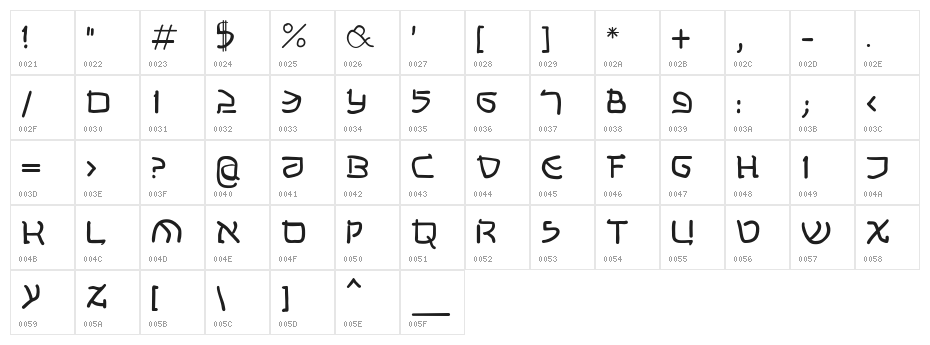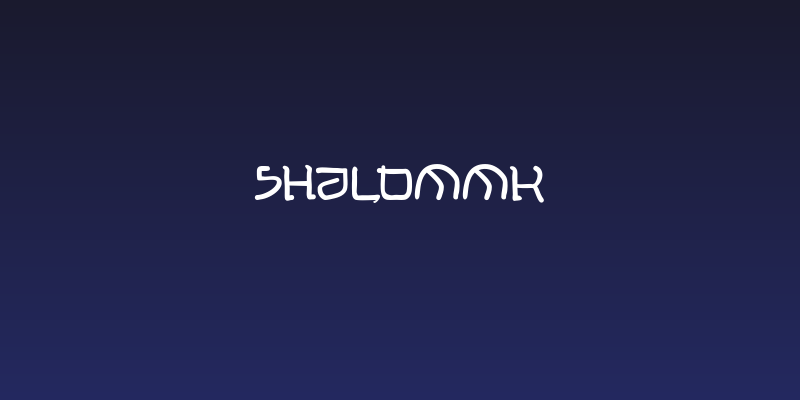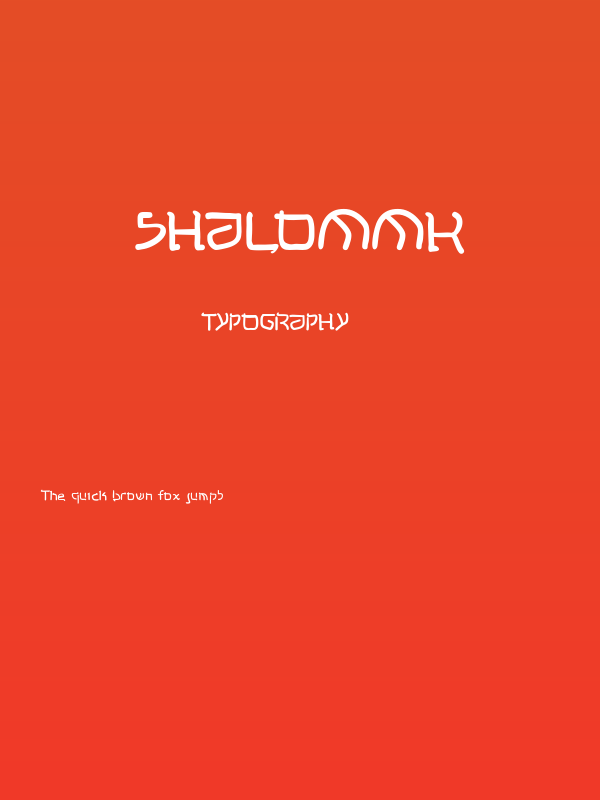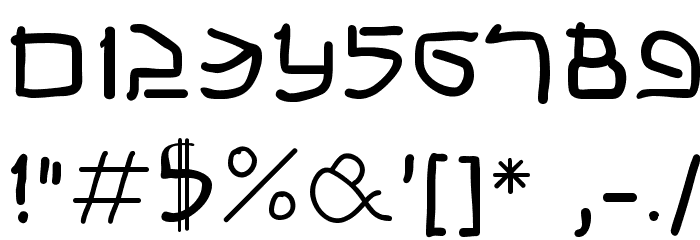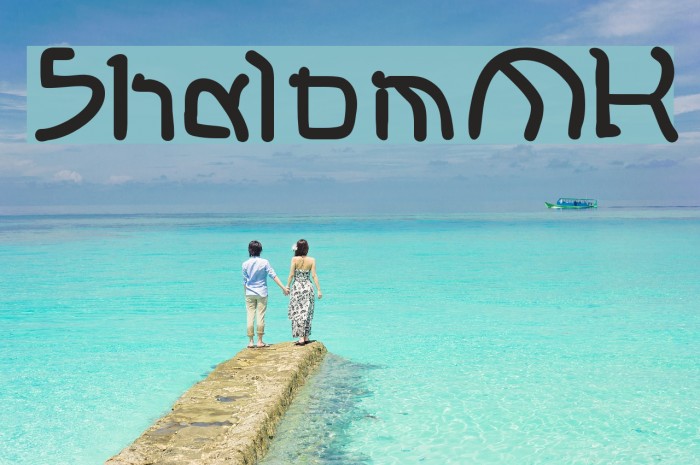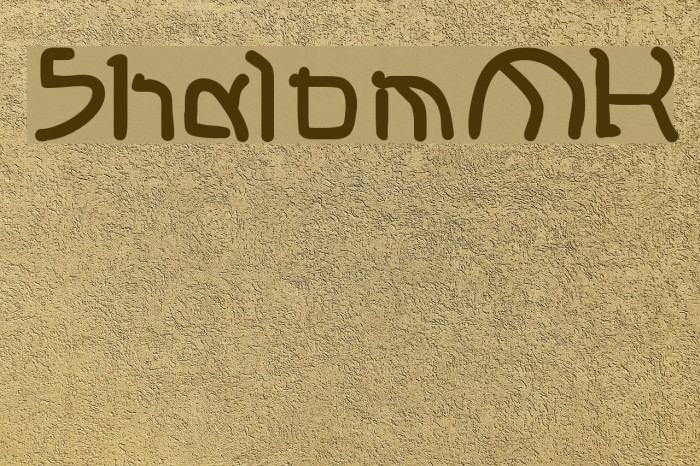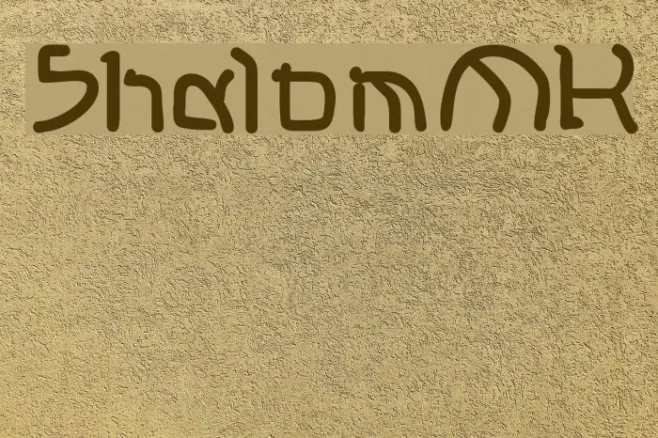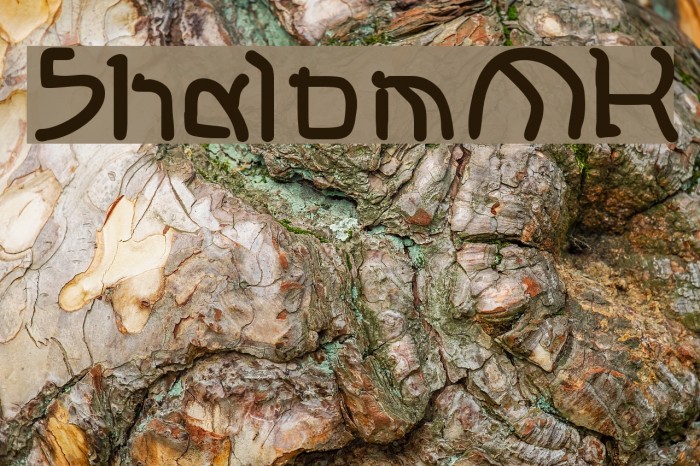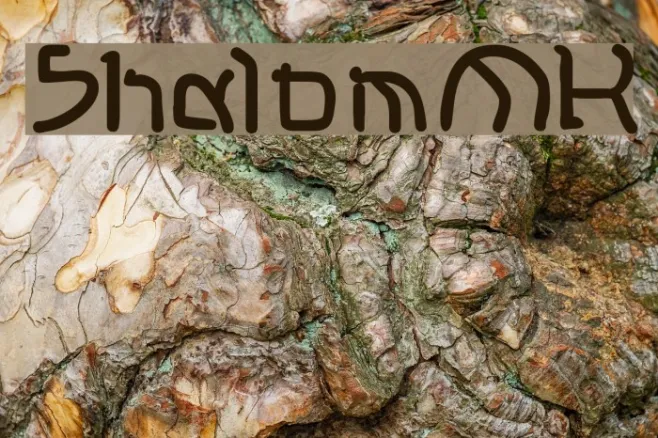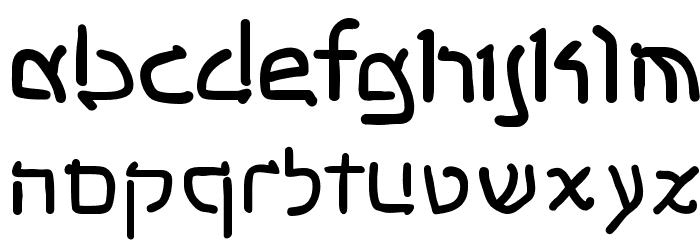
ShalomMK Font
ShalomMK Description
This font features a unique, modern design with a playful and artistic flair. The characters are crafted with a smooth, rounded style that gives a sense of fluidity and motion. Each letter has a distinct personality, with curves and angles that create a dynamic appearance. The uppercase and lowercase letters maintain a consistent style, while the numerals and special characters complement the overall aesthetic. This font is ideal for projects that require a creative and contemporary touch, offering a fresh and engaging visual experience.
| Use Case | Logos, Headlines, Posters |
| Proposed Projects | Ideal for branding, creative posters, children's books, and modern digital media. |